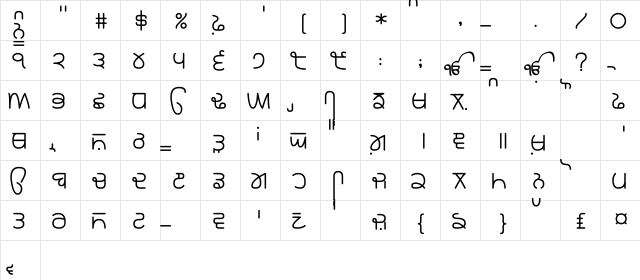
Rupe 4 Book Short
| Foundry | Paul Alan Grosse |
| Designer | Paul Alan Grosse |
Design Context for Rupe 4 Book Typeface
Rupe 4 Book is a composed and adaptable typeface that performs quietly and consistently across a wide range of design contexts.